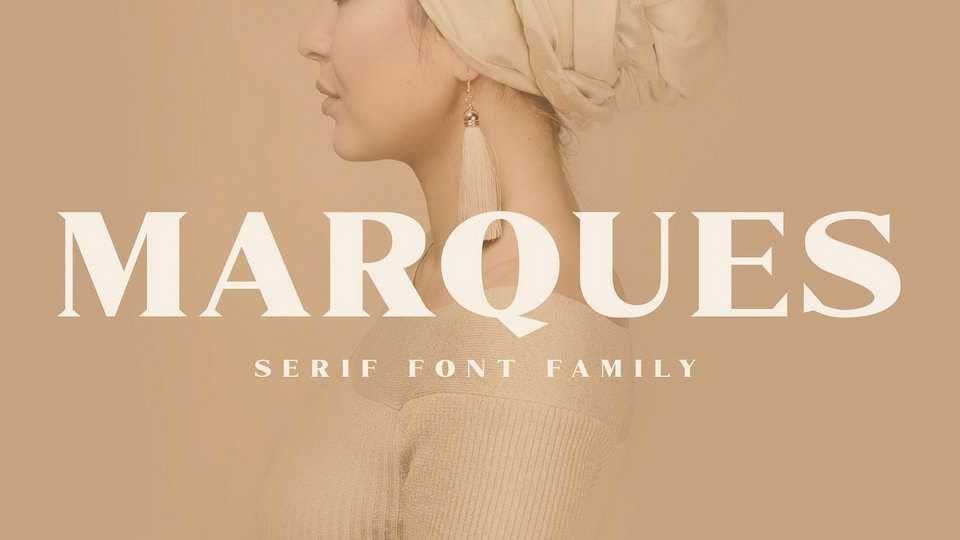
Download Marques typeface, a modern serif font family with the relatively low contrast of strokes, the slightly squarish shapes of round characters and the emphasized business like simplicity.